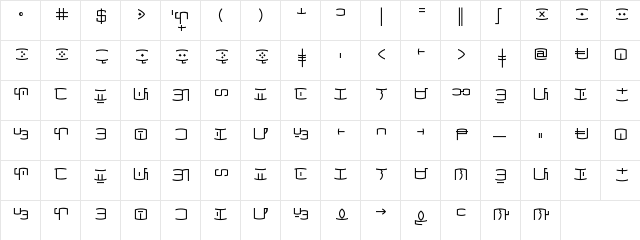
Baybayin Mod SC Regular
Design Context for Baybayin Mod SC Typeface
Baybayin Mod SC offers clean, dependable letterforms without strong stylistic allegiance, making it a practical choice for designers who need flexibility.
Pro Tip: Use Baybayin Mod SC in both headline and body roles to test its range before committing to a single application.